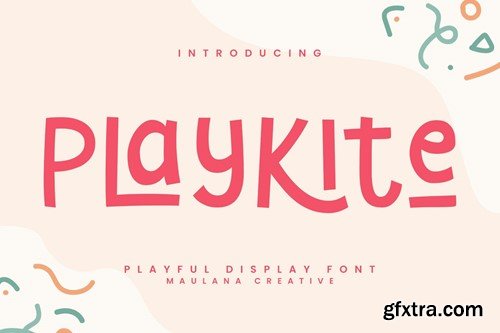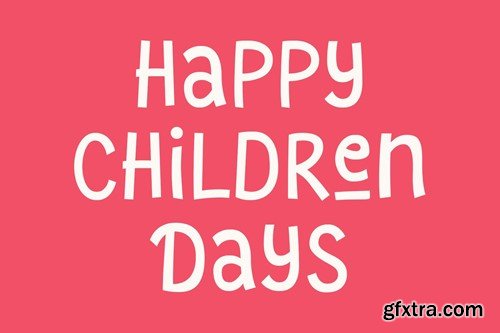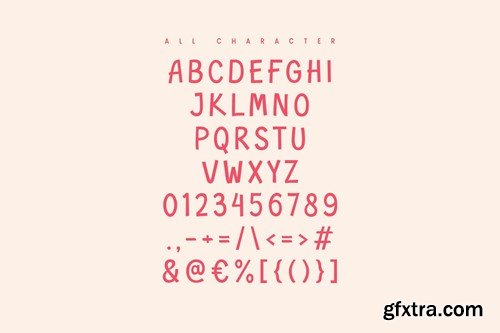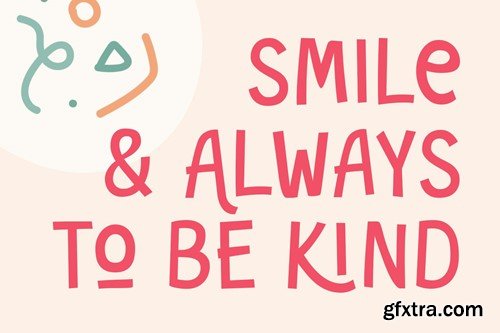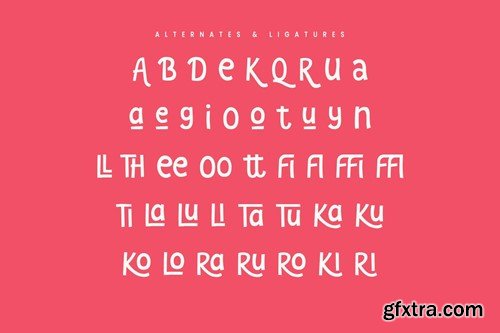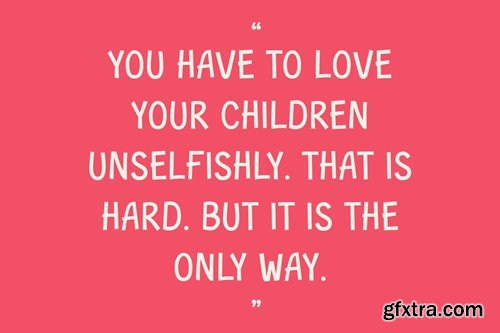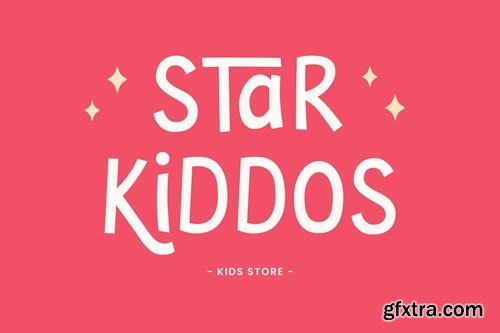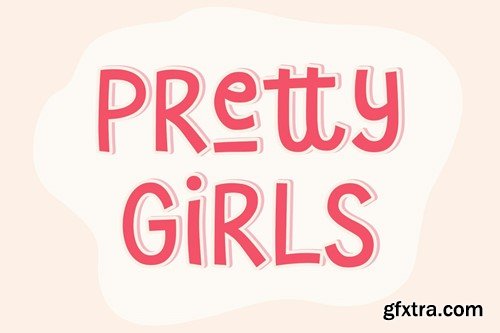
Playkite Playful Display Font
Playkite playful display font. Heavy stroke, fun character with a bit of ligatures. To give you an extra creative work. Playkite playful display font support multilingual more than 100+ language. This font is good for logo design, Social media, Movie Titles, Books Titles, a short text even a long text letter and good for your secondary text font with script or serif. Make a stunning work with Playkite playful display font. What you get: